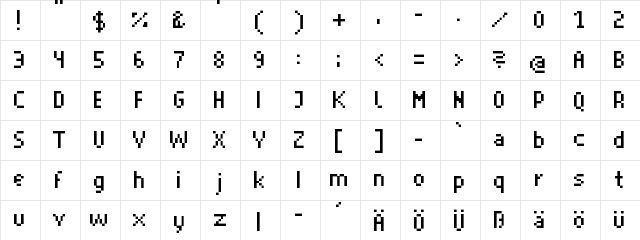
superhelio _thin
Design Context for superhelio
superhelio is a composed and adaptable typeface that performs quietly and consistently across a wide range of design contexts. Its slender proportions lend an understated elegance to any composition.